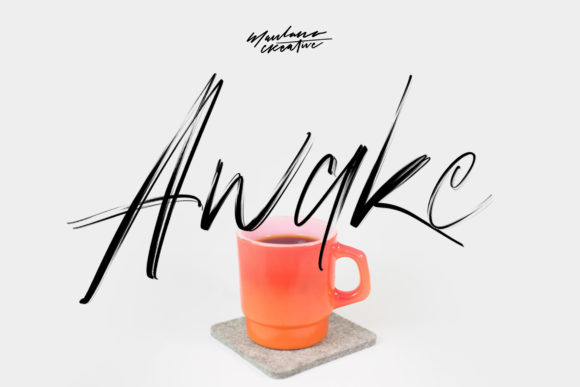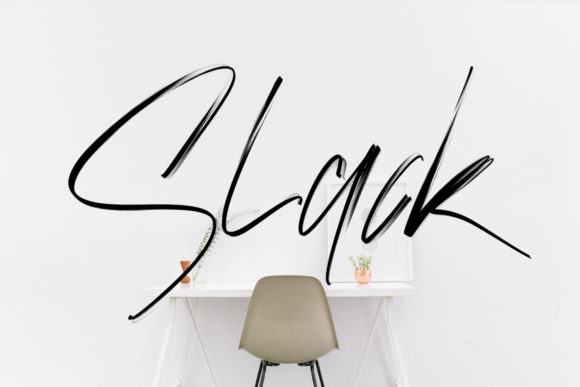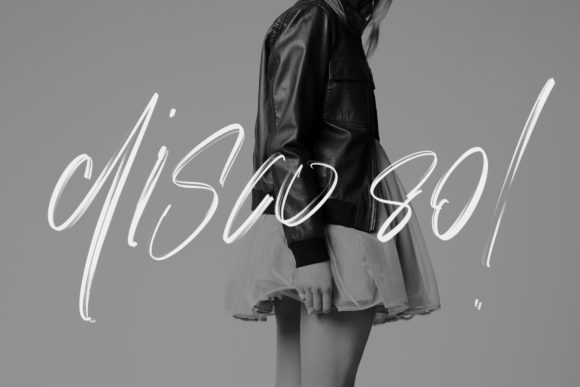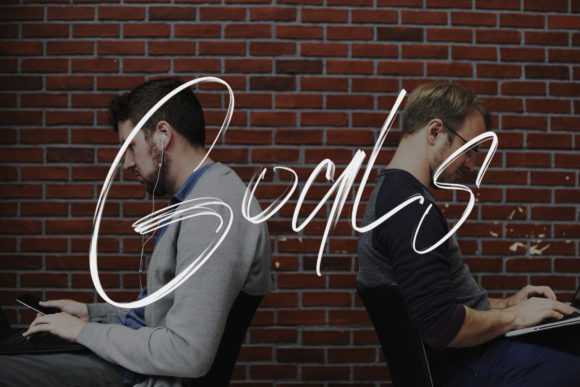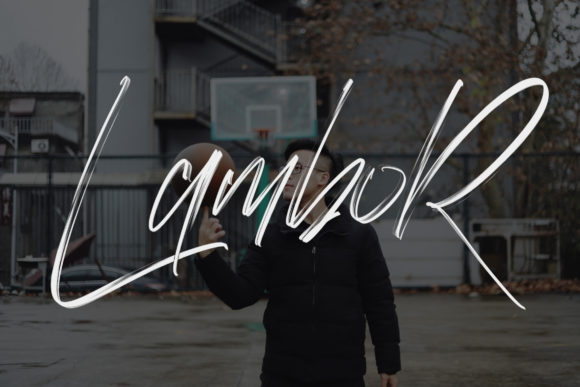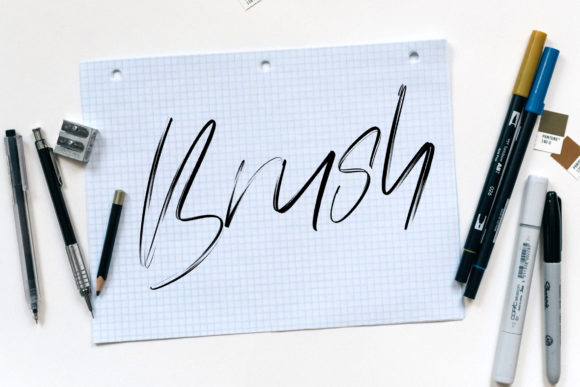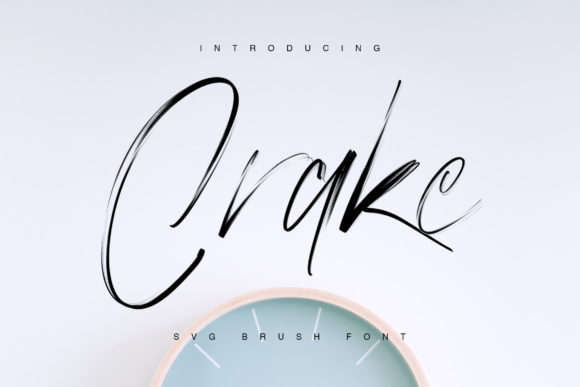
Crake Font: Elevate Your Designs with Elegant Brush Strokes
Crake is an elegant brush style handwritten font that can add a touch of sophistication to any design project. With its unique blend of classic and modern elements, Crakes Font is perfect for designers and crafters looking to create realistic and spectacular designs. In this article, we’ll explore the features and benefits of Crakes Font, and provide tips on how to use it to take your designs to the next level.
The Characteristics of Crakes Font
Crakes Font is a brush style handwritten font that exudes elegance and refinement. Its flowing strokes and subtle imperfections give it a human touch, making it perfect for designs that require a personal and emotive feel. The font features:
- Elegant brush strokes: Crakes Font boasts beautiful, flowing brush strokes that add a touch of sophistication to any design.
- Handwritten style: The font’s handwritten style gives it a personal and emotive feel, making it perfect for designs that require a human touch.
- Classic and modern elements: Crakes Font combines classic and modern elements to create a unique and timeless look.
Benefits of Using Crakes Font
Crakes Font offers a range of benefits for designers and crafters, including:
- Versatility: Crakes Font can be used for a wide range of design projects, from branding and advertising to packaging and digital media.
- Unique look: Crakes Font’s unique blend of classic and modern elements gives it a distinctive look that sets it apart from other fonts.
How to Use Crakes Font
Crakes Font is easy to use and can be incorporated into a wide range of design projects. Here are some tips on how to get the most out of this beautiful font:
- Pair it with other fonts: Crakes Font can be paired with other fonts to create a unique and visually appealing design.
- Use it for headlines and titles: The font’s elegant brush strokes make it perfect for headlines and titles, adding a touch of sophistication to any design.
- Experiment with colors and textures: Crakes Font can be used with a range of colors and textures to create a unique and eye-catching design.
Design Ideas Using Crakes Font
Crakes Font can be used for a wide range of design projects, including:
- Branding and advertising: Use Crakes Font to create elegant and sophisticated branding and advertising materials, such as logos, business cards, and billboards.
- Packaging design: The font’s elegant brush strokes make it perfect for packaging design, adding a touch of luxury and sophistication to any product.
- Digital media: Crakes Font can be used for digital media, such as social media graphics, website headers, and email marketing campaigns.
Crakes Font is an elegant brush style handwritten font that can add a touch of sophistication to any design project. With its unique blend of classic and modern elements, Crakes Font is perfect for designers and crafters looking to create realistic and spectacular designs. Whether you’re looking to create branding and advertising materials, packaging design, or digital media, Crakes Font is a versatile and easy-to-use font that can help you achieve your design goals.